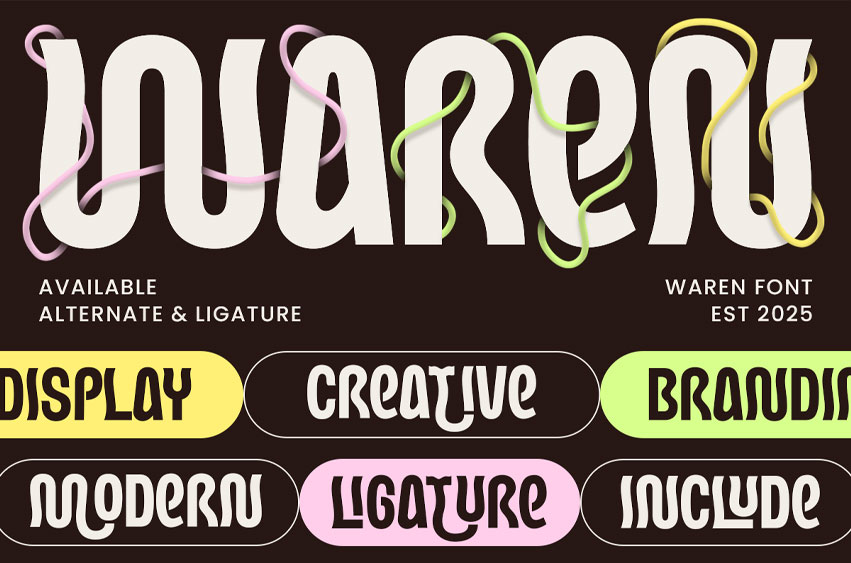
Waren Font is a display creative branding font designed to give your projects a bold and distinctive identity. With its strong and stylish letterforms, WAREN is perfect for logos, packaging, posters, and brand identities that need to stand out with creativity and impact.
Its clean structure and modern aesthetic make it versatile for a wide range of applications, from startup branding to editorial headlines. Whether for digital or print use, WAREN ensures your designs leave a lasting impression.
WAREN – Display Creative Branding Font Features
• Bold display style for impactful designs
• Perfect for logos, packaging, posters, and brand identity
• Includes uppercase, lowercase, numerals, and punctuation
• Versatile and stylish design for modern projects
• OpenType features for advanced typographic flexibility
Make your brand unforgettable with WAREN – the creative display font for bold and modern branding.